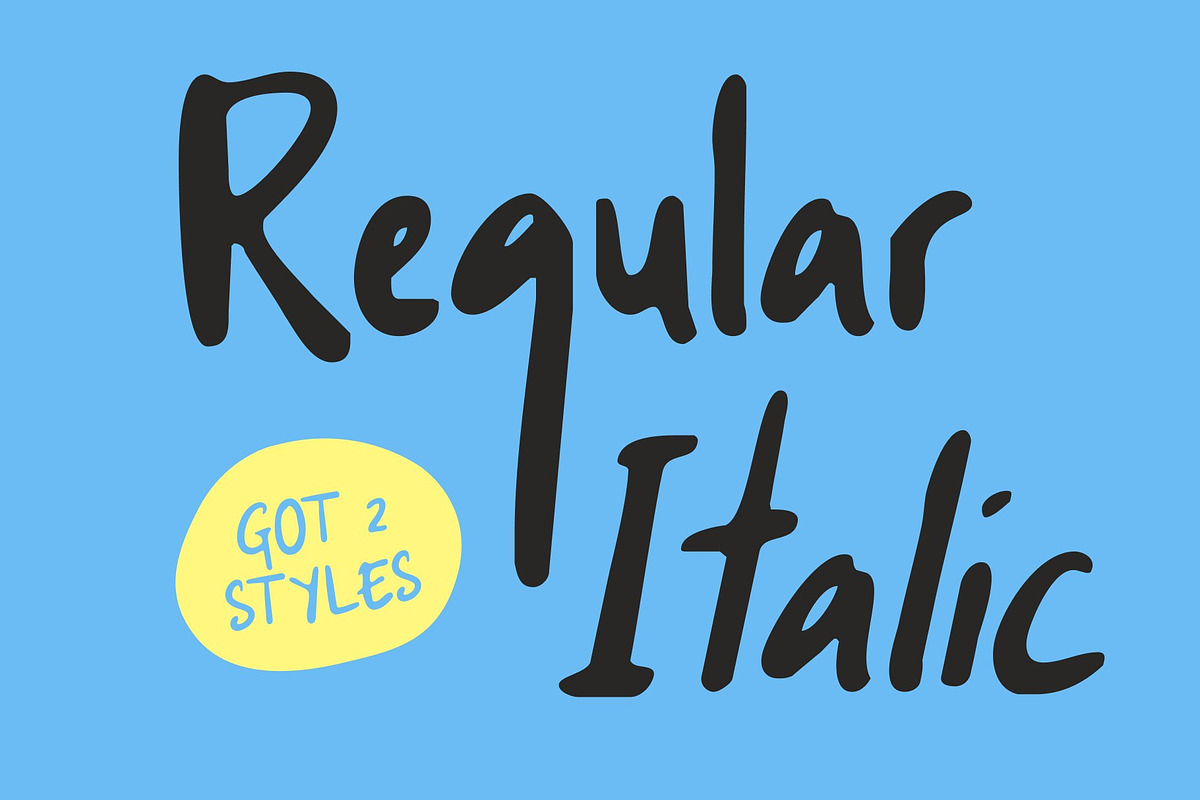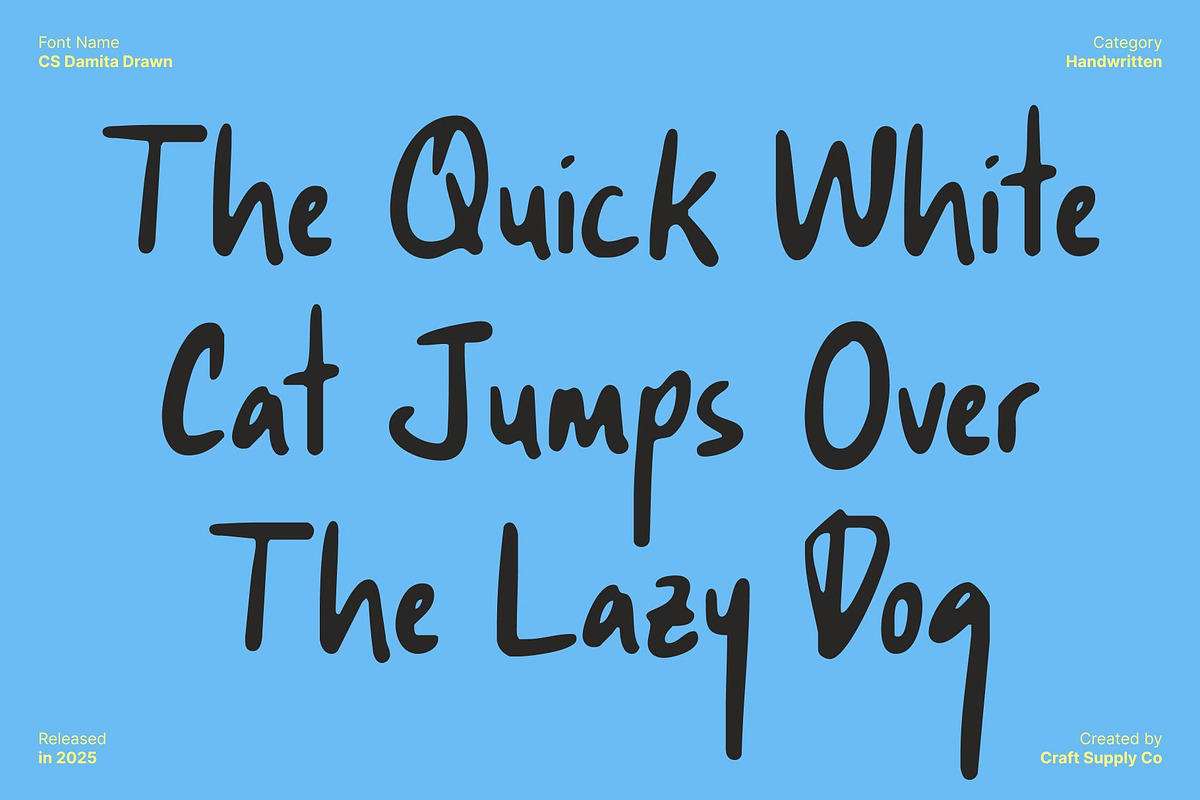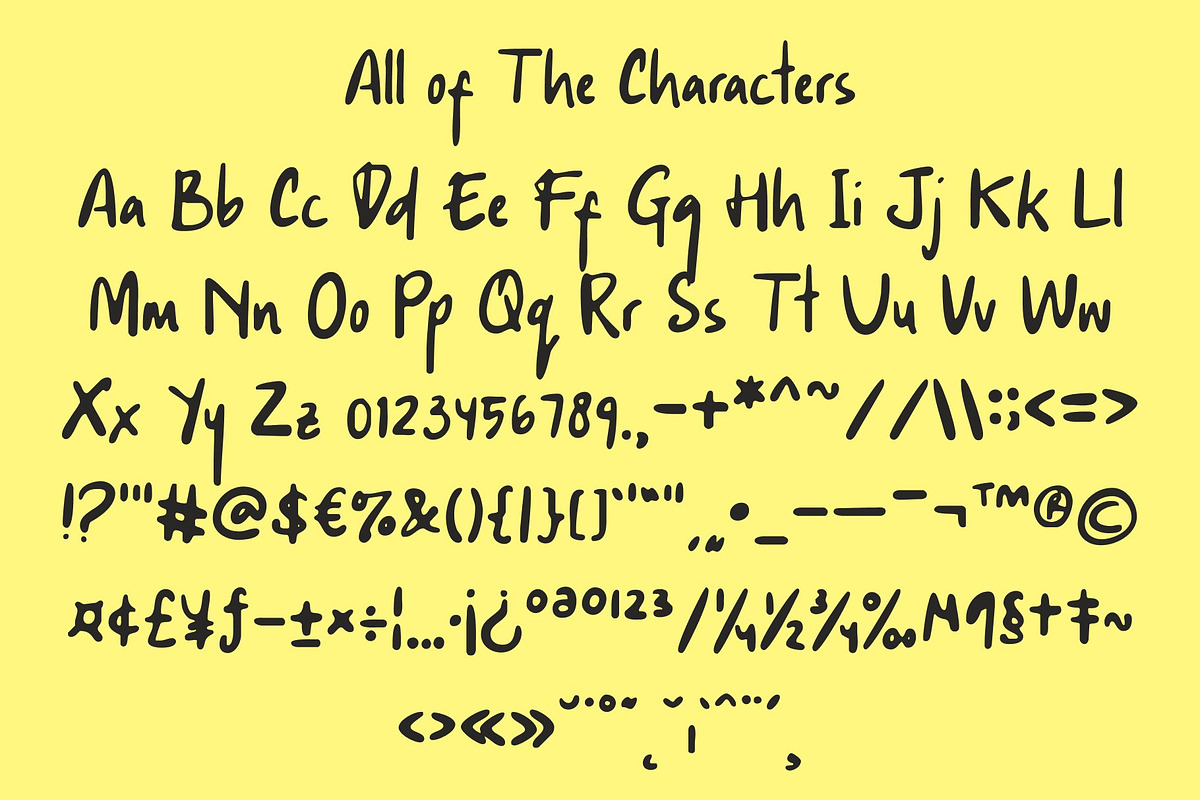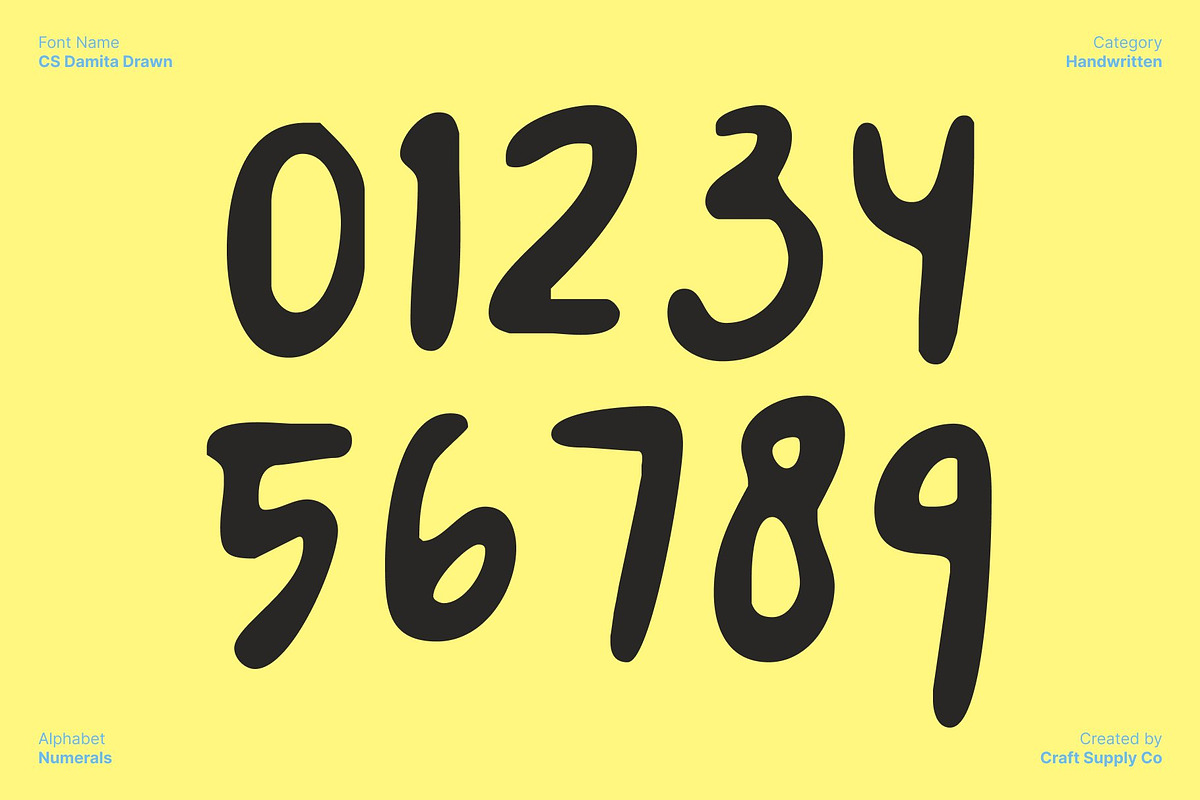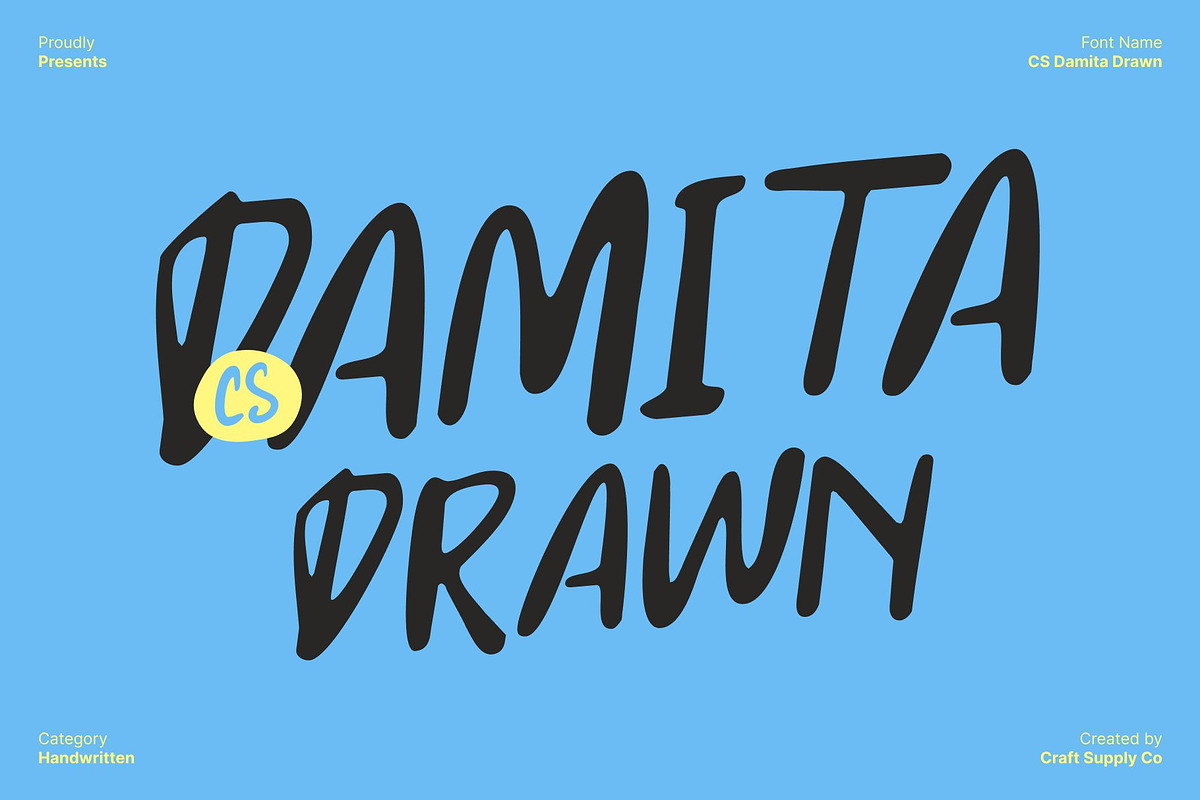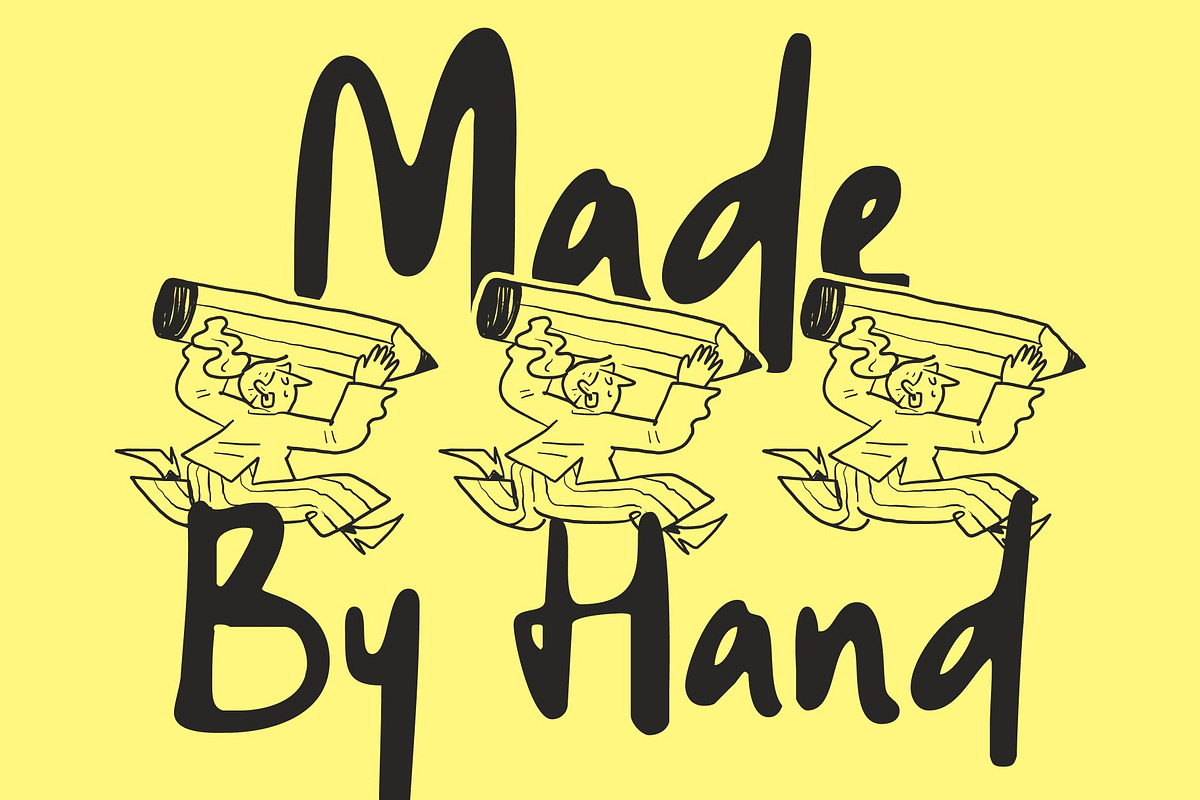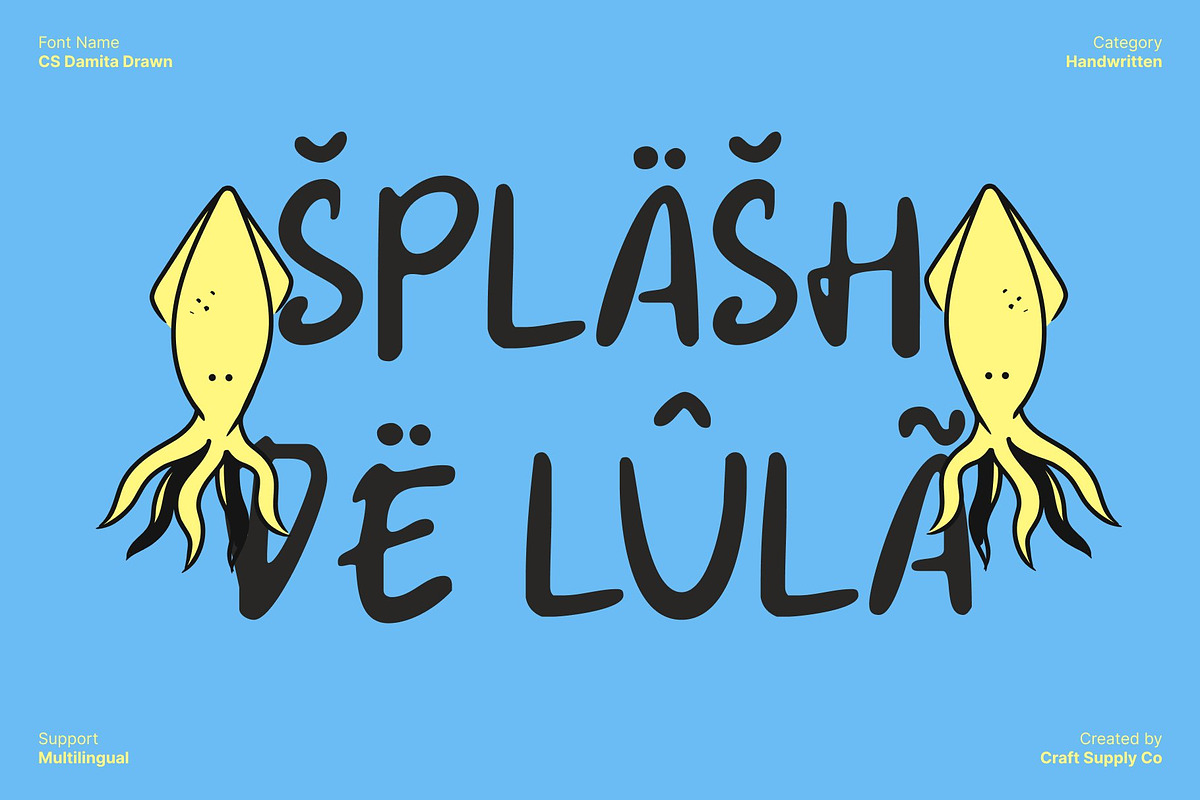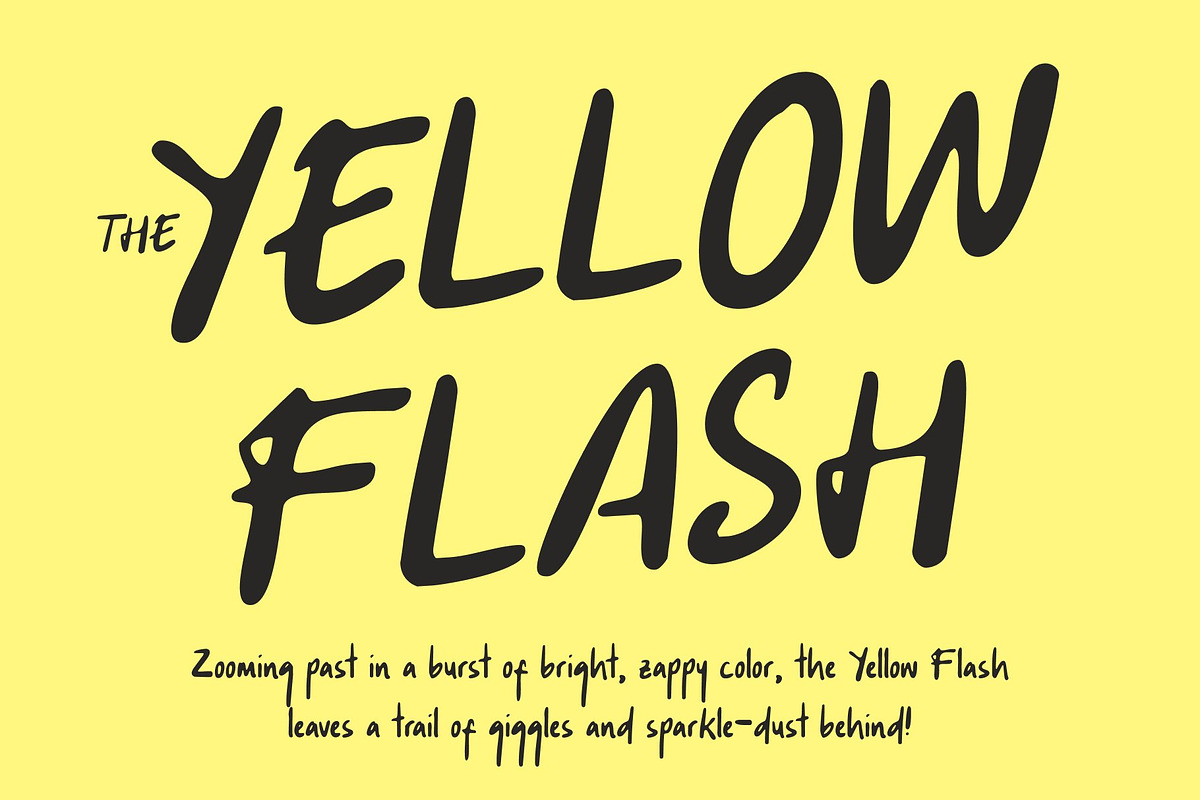
CS Damita Drawn
CS Damita Drawn – Soft Handwritten Display with Warm Authenticity
Natural Pen Strokes with Gentle Personality This is a handwritten sans serif font that celebrates the charm and sincerity of real pen strokes. Its soft, flowing letterforms carry subtle texture and variation thanks to the drawn effect, giving each character a handcrafted, organic feel. The result is typography that radiates warmth, approachability, and personal connection.
Friendly Curves for Approachable Design The rounded, smooth shapes of this font create a welcoming and easy-going presence. Each letter’s natural variation enhances readability while adding personality, making the font perfect for designs that want to feel intimate, authentic, and inviting.
Expressive Flow for Emotional Storytelling With its fluid, heartfelt motion, this font brings life and emotion to headlines, quotes, and short messages. Its dynamic strokes provide a natural rhythm, turning text into a visual expression of personality and sentiment. Every composition gains depth, charm, and a handcrafted touch.
Perfect for Personal Branding, Invitations, and Creative Projects Whether for signature-style logos, social media graphics, casual invitations, or journal-inspired designs, this font delivers warmth, authenticity, and creative flair. It’s ideal for any project that seeks to connect with audiences through thoughtful, heartfelt typography.